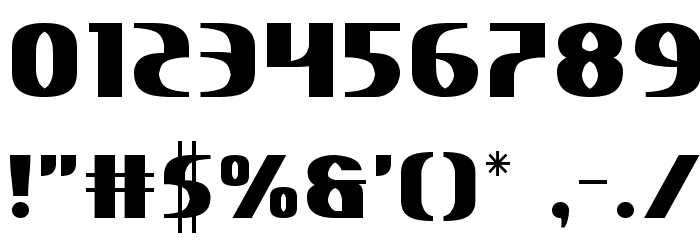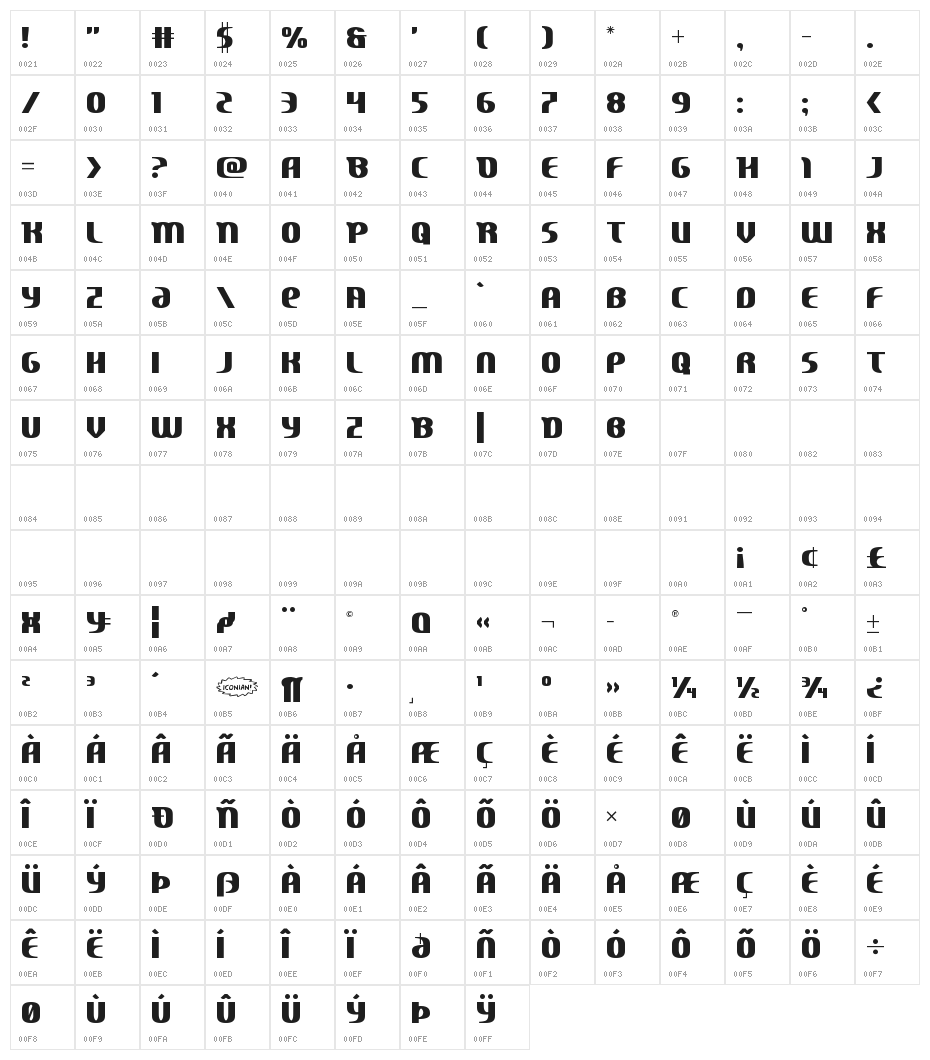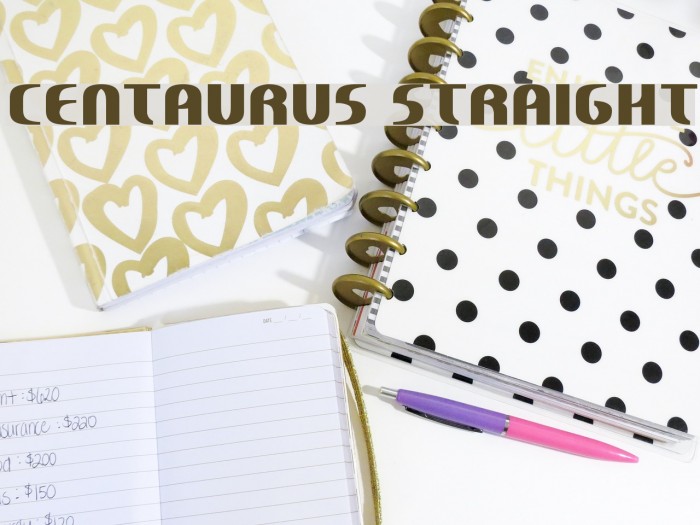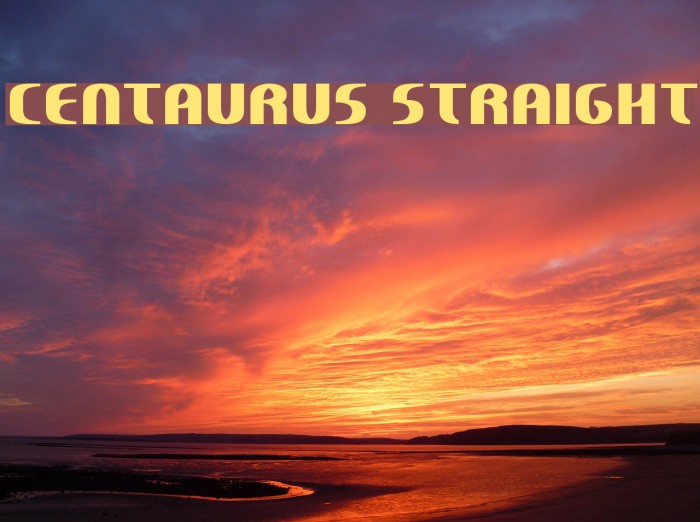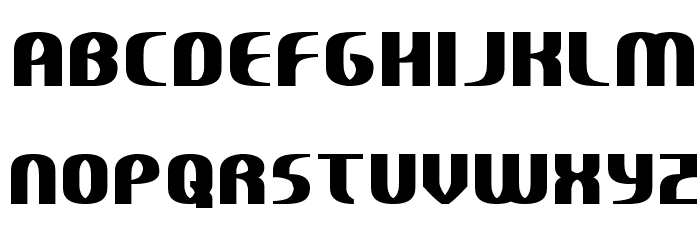
Centaurus Straight Font
Centaurus Straight Description
This font exhibits a bold and striking appearance with a modern twist. The characters are designed with a unique curvature that adds a sense of movement and dynamism. The uppercase letters are particularly distinctive, featuring a blend of sharp angles and smooth curves that create a futuristic aesthetic. The lowercase letters maintain this style, ensuring consistency across the typeface. Numbers and special characters are crafted with the same attention to detail, making them stand out while remaining readable. The overall design is both eye-catching and functional, suitable for a variety of creative applications.